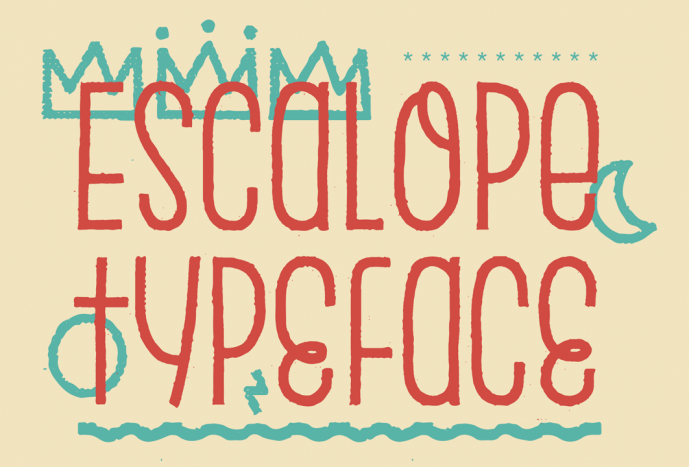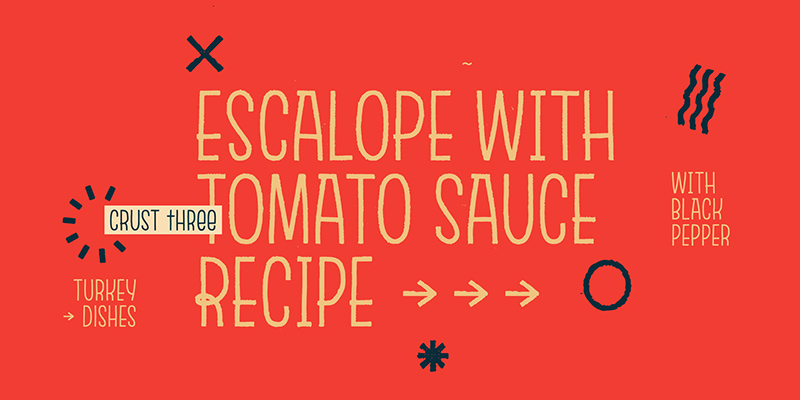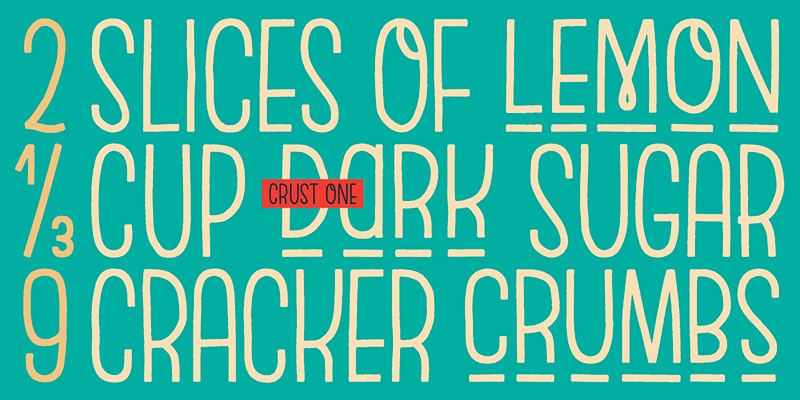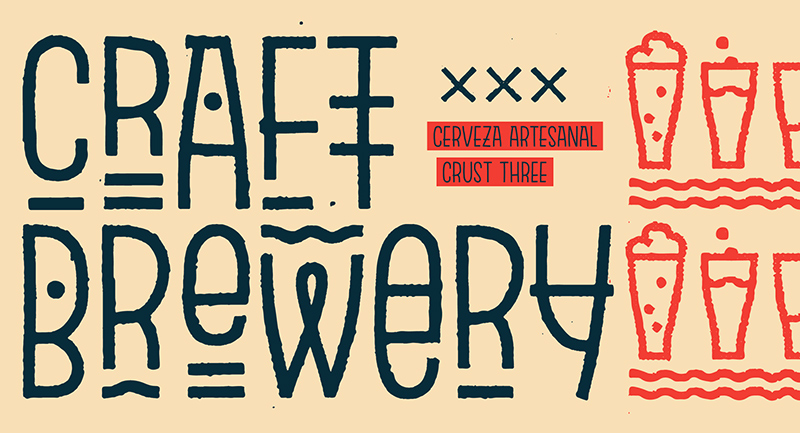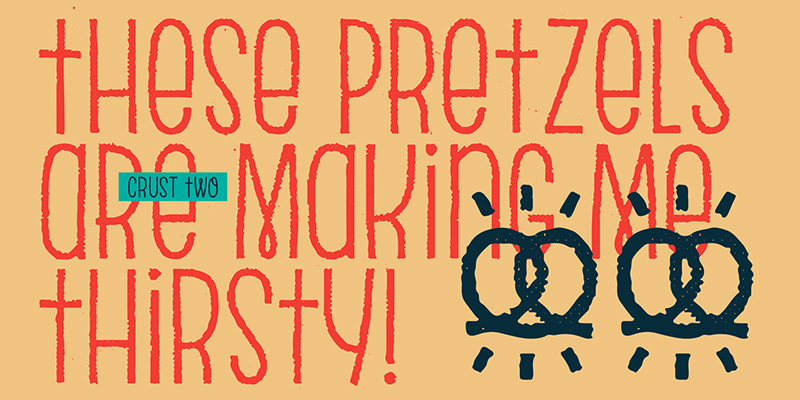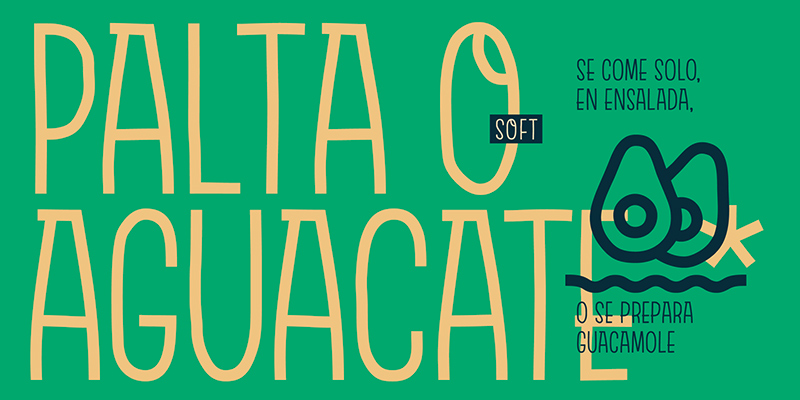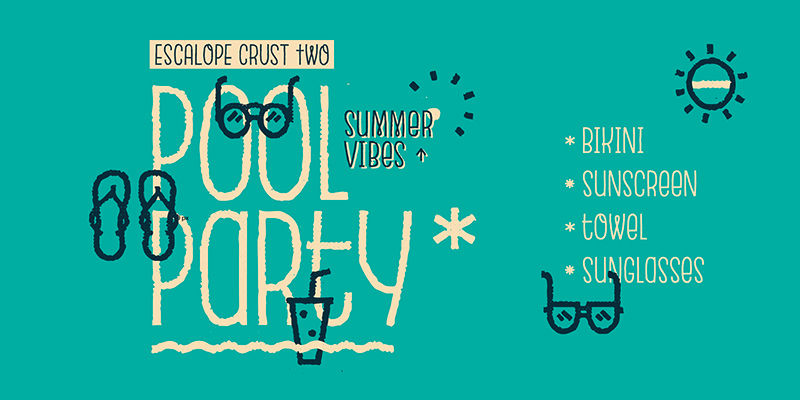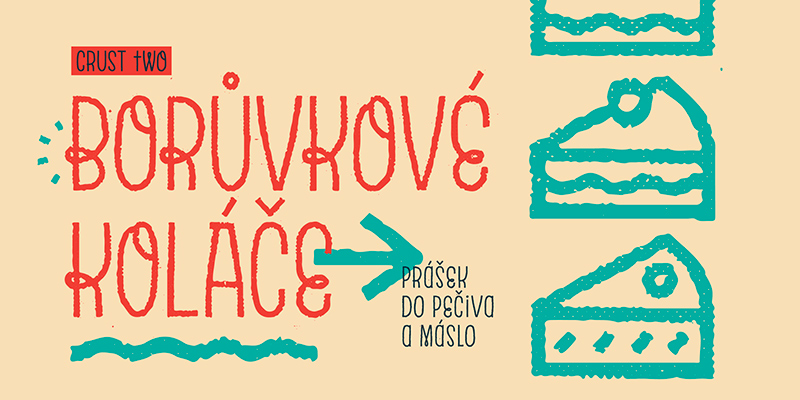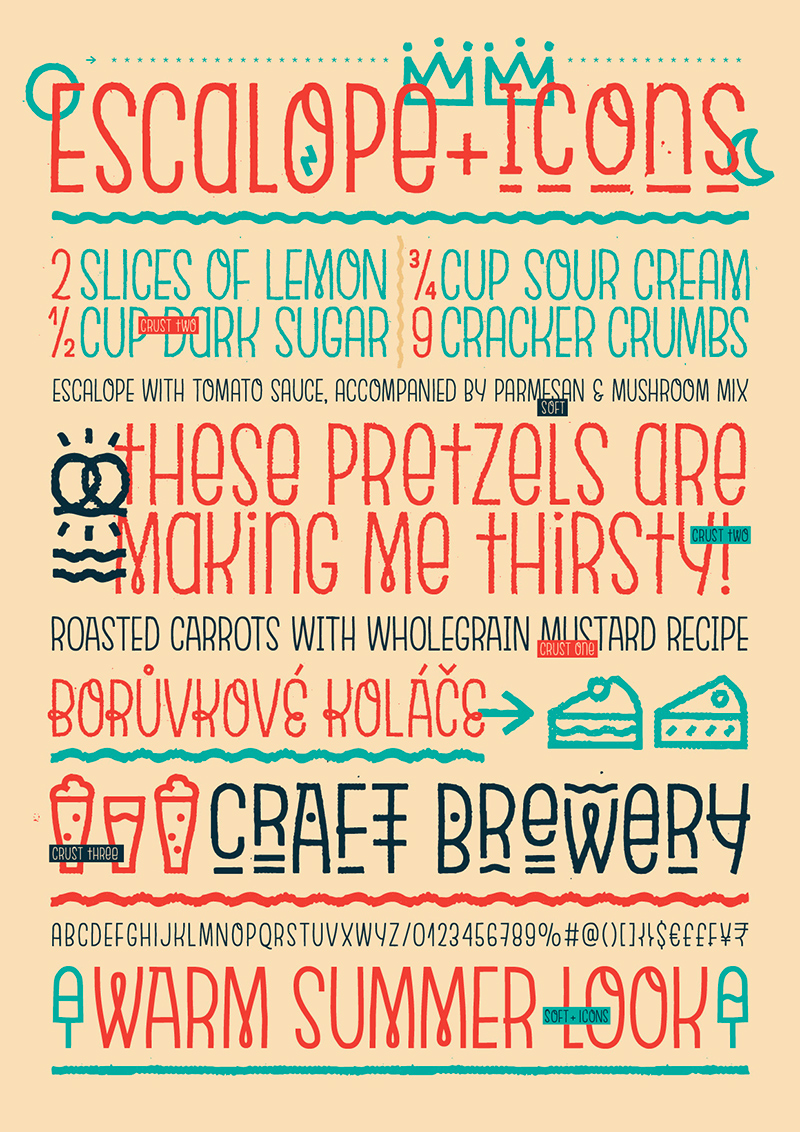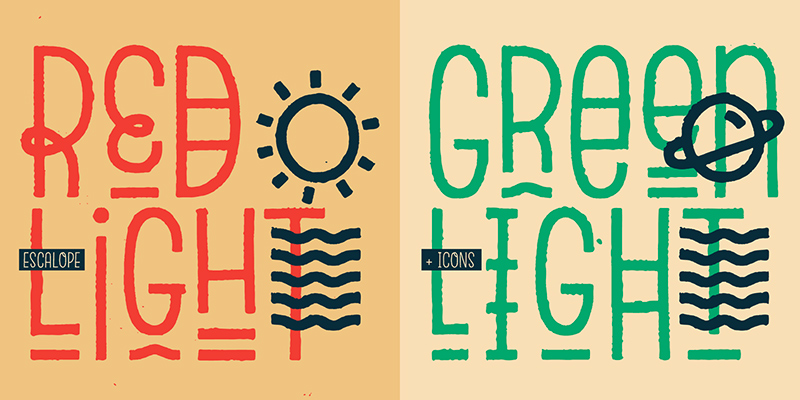
Escalope is a hand-drawn typeface with a unique personality due to its creative and informal appearance. The AllCaps and mixed-case style, the low midline, the matching icons, the fun and playful alternate characters, and many other features make it stand out from the rest.
Escalope has three sets of alphabets as part of the OpenType’s Contextual Alternates to ensure no characters are repeated. These alphabets follow one another so that when writing repeated characters other versions of the same glyph appear, each with its own irregular and crooked outlines. This makes this typeface different from the rest by creating a more realistic result.
In addition, this typeface has three Stylistic Sets and a variety of Stylistic Alternates, which give more visual interest to the type composition. These three decorative sets can be mixed to create infinite results. As MyFonts’ affirms, “You can mix and match them so that no two combinations will ever look the same, making this (Escalope) family eco-friendly.” (MyFonts’ Trending Newsletter, 2017)
This typeface had a complex creative process since the textures were part of an experimental exercise at the beginning of it all. The characters and icons where drawn by hand, and after that, these where scanned and vectorized from scratch in the font software. Once all glyphs were finished, they were arranged in different sheets, printed and scanned again to gain the photocopy texture. Nothing compares to real textures, right?
The strength of Escalope relies on its versatility. Besides the alternate sets and the large language support (+1,400 glyphs), this type family includes a set of 150 icons that are available in the same four textures. They share the weight and font characteristics for a perfect match.
Escalope was sketched, designed and programmed from October 2016 to January 2017, in Buenos Aires, Argentina. It was finally released on January 27th, 2017.
Escalope
Foundry: Antipixel
Designer: Julia Martinez Diana
Release: January 2017
Weights: Escalope Crust One, Escalope Crust Two, Escalope Crust Three, Escalope Soft. + Icons: Escalope Crust One Icons, Escalope Crust Two Icons, Escalope Crust Three Icons, Escalope Soft Icons